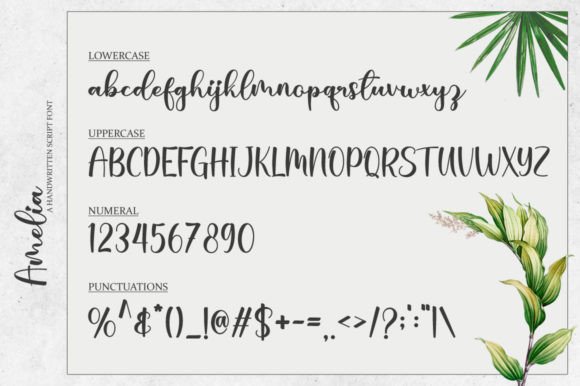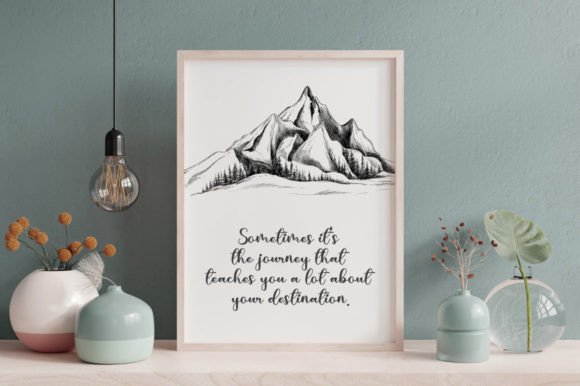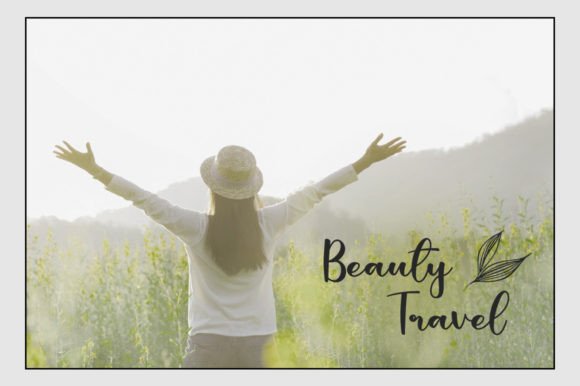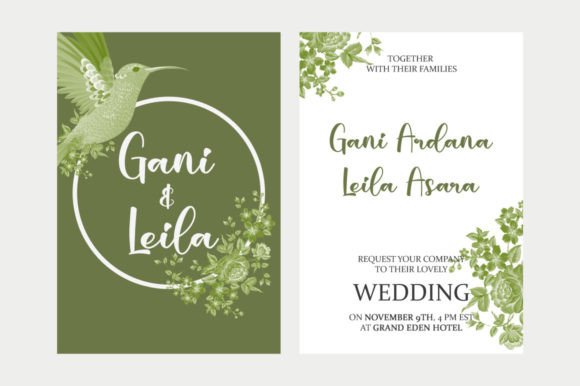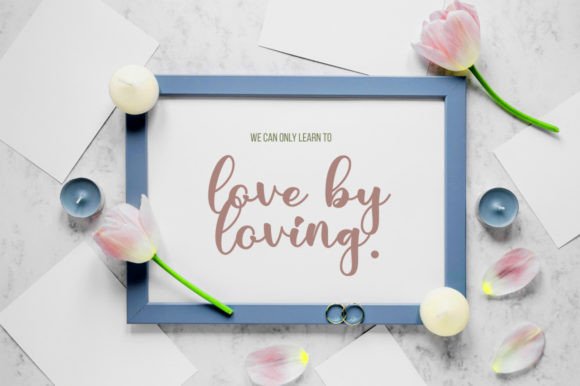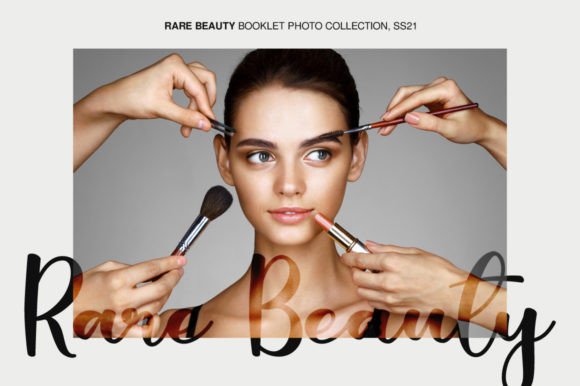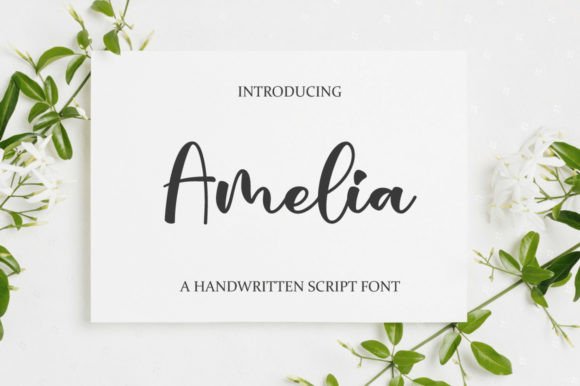
Discover the Charm of Amelia Font: A Timeless Handwritten Delight
Are you on the hunt for a font that exudes elegance, sophistication, and a touch of whimsy? Look no further than Amelia Font, a lovely and timeless handwritten font that’s perfect for creating eye-catching logos, branding, and quotes. In this article, we’ll dive into the world of Amelia Font, exploring its unique features, uses, and benefits for designers and crafters.
Handwritten fonts have a way of capturing our hearts with their organic, personal, and artistic feel. They evoke emotions, convey personality, and add a touch of humanity to any design. Amelia Font is no exception, boasting a beautiful, flowing script that’s sure to captivate your audience. Its elegant strokes, subtle imperfections, and rhythmic flow make it an excellent choice for designs that require a personal touch.
What Makes Amelia Font Special?
Amelia Font stands out from the crowd with its unique blend of classic and modern elements. Here are a few reasons why designers and crafters love this font:
- Timeless appeal: Amelia Font has a classic, timeless quality that never goes out of style. Its beauty lies in its simplicity, making it suitable for a wide range of design applications.
- Elegant strokes: The font features smooth, flowing strokes that give it a sense of movement and fluidity. This makes it perfect for creating eye-catching logos, headings, and titles.
- Versatile: Amelia Font is incredibly versatile, suitable for use in various design projects, from branding and advertising to packaging and digital media.
- Easy to read: Despite its elegant, cursive nature, Amelia Font is surprisingly easy to read, making it an excellent choice for body text, quotes, and other written content.
Uses for Amelia Font
Amelia Font is an incredibly versatile font that can be used in a wide range of design applications. Here are some ideas to get you started:
- Logo design: Create a stunning logo for your business or brand with Amelia Font. Its elegant strokes and timeless appeal make it perfect for companies that want to convey sophistication and style.
- Branding and advertising: Use Amelia Font to create eye-catching branding materials, such as brochures, flyers, and posters. Its unique character will help your brand stand out from the competition.
- Quotes and typography: Add a touch of elegance to your quotes and typography with Amelia Font. Its flowing script is perfect for creating beautiful, shareable graphics.
- Packaging design: Amelia Font is an excellent choice for packaging design, particularly for luxury brands or products that require a touch of sophistication.
Tips for Using Amelia Font
To get the most out of Amelia Font, here are a few tips to keep in mind:
- Pair with contrasting fonts: Combine Amelia Font with contrasting fonts to create visual interest and hierarchy in your design.
- Experiment with colors: Amelia Font looks stunning in a range of colors, from bold and bright to soft and pastel. Experiment with different hues to find the perfect match for your design.
- Pay attention to spacing: As with any font, make sure to adjust the spacing and kerning to ensure that Amelia Font looks its best in your design.
Amelia Font is a beautiful, timeless handwritten font that’s perfect for designers and crafters looking to add a touch of elegance and sophistication to their designs. With its unique features, versatility, and ease of use, it’s an excellent choice for a wide range of design applications. Whether you’re creating logos, branding materials, or quotes, Amelia Font is sure to captivate your audience and leave a lasting impression.